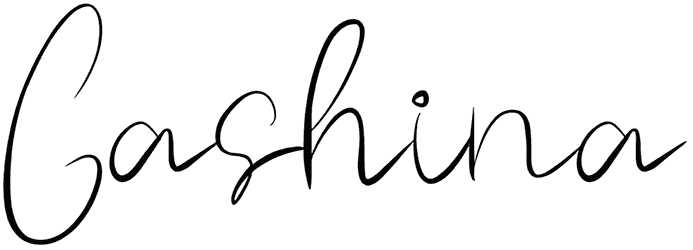
Gashina Font
Even the first time the audience looks at your graphic content that is designed with the help of a marvelous script font, the same as the Gashina, they will fall in love with your projects.
Due to its thin and rounded style, it has the real ability to evoke a sense of personalization, delicacy, softness, or vitality. We believe that this wedding font really deserves to be on your radar for designing book covers, flyers, gift cards, and digital banners.